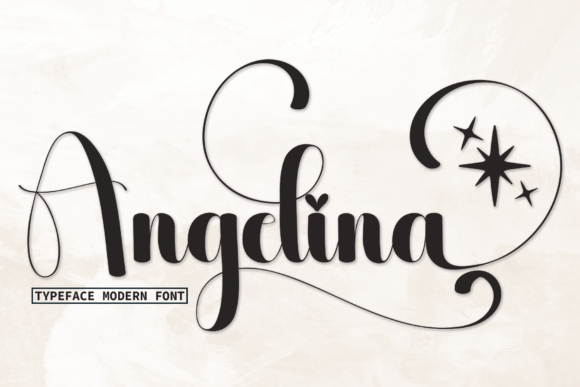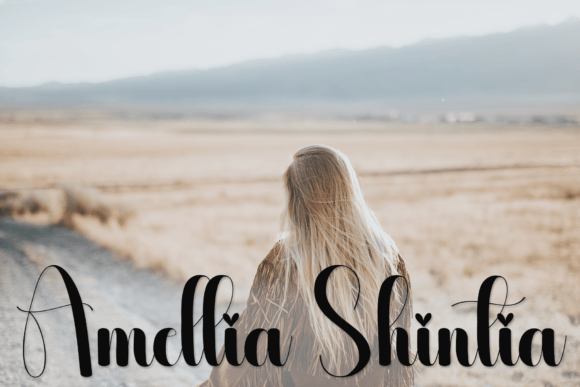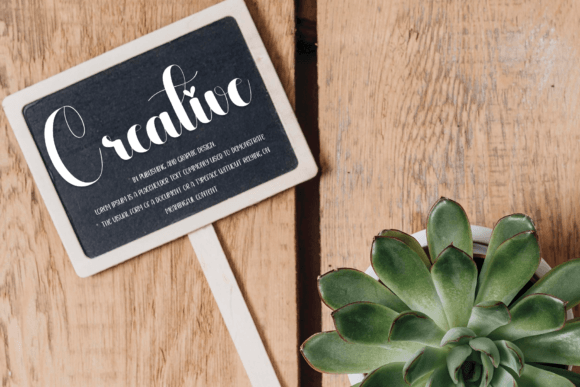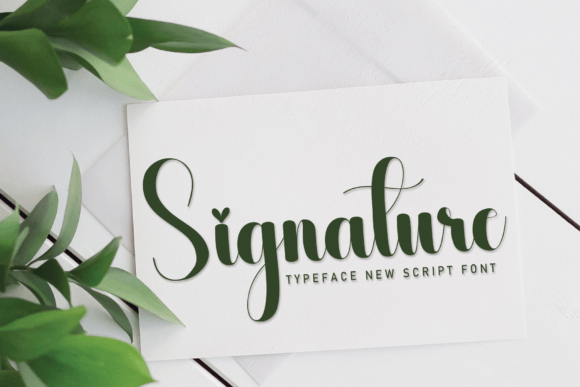
Angelina Font: Elegant Cursive Script for Wedding & Logo Design
About the Angelina Font
Meet Angelina Font, a stunning font that brings a touch of elegance and professionalism to any design. Angelina is a sweet and cursive handwritten font. This gentle font will look gorgeous on a variety of design ideas. It will add a joyful and romantic touch to each of your projects!  Perfectly fit for branding, logo, wedding things, greeting cards, fashion, lookbook, marketing promotion, and anytime you want to look fancy and elegant but still casual.
Angelina’s delicate cursive style is ideal for headlines, short text blocks on invitations or packaging, and branding elements where a touch of elegance and playfulness is desired. It excels in projects related to weddings, fashion, beauty, and other industries emphasizing romance and a handcrafted aesthetic. However, its low x-height and connected letters make it unsuitable for body copy or UI elements requiring high readability.
For optimal visual balance, pair Angelina with a clean sans-serif like Lato or Open Sans for body text, creating contrast and enhancing readability. Alternatively, a classic serif like Garamond or a more modern geometric sans-serif like Montserrat would provide a sophisticated contrast. Avoid pairing with other script fonts, as this could result in visual clutter.
Angelina’s overall personality is best described as romantic, friendly, and slightly whimsical. Its gentle curves and flowing strokes evoke a sense of warmth and approachability, making it perfect for brands wishing to project a feminine and charming image.
Angelina Font Usage Examples
Angelina Font Example